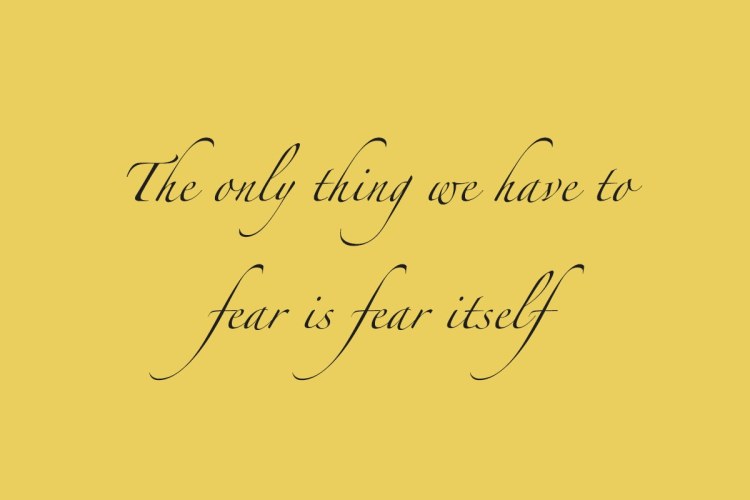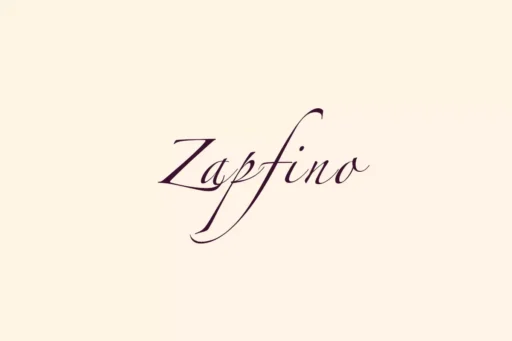
Zapfino Font
Zapfino font was developed in 1998 by Hermann Zapf, one of the greatest type designers. It fuses the classic calligraphic style with the modern requirements of type desi…
Zapfino font was developed in 1998 by Hermann Zapf, one of the greatest type designers. It fuses the classic calligraphic style with the modern requirements of type design. This typeface clearly demonstrates how calligraphy remains relevant even in today’s world of digital typography, translating the essence of handwriting in an elegant and detailed manner.
The history of Zapfino starts with Hermann Zapf, a famous typeface designer. In 1944, Zapf developed an alphabet that reflected the art of calligraphy. But it was not until 1998 that this alphabet developed into the digital font Zapfino. Zapf wanted to design a font that imitates handwritten lettering in liquid and dynamic forms. He created Zapfino from Renaissance calligraphy in Italian and French scripts with the help of modern technological advancement in typography.
It was distributed by Linotype; Zapfino was very well-received, with many people noting the fine detailing and the graceful curves. The design community took to this typeface and incorporated it into many designs as well as other forms of creative projects. Realizing the potential of enhancing the features of Zapfino, Hermann Zapf collaborated with Akira Kobayashi to release Zapfino Extra in 2003. This new typeface library offered the best in today’s typography; it offered variety and flexibility and gave the graphic designer a chance to be more creative.
The letterforms of Zapfino are characterized by their elegance and sophistication; the ligatures are detailed, and the stroke weights are not uniform, which gives the font an active and striking aesthetic. Its letters have smooth transitions to make the words appear as if written in joined-up writing, thus improving the legibility. This font contains many characters in every style, including alternate glyphs and swashes that can be suitable to create unique effects for the text and headlines.
Also, Zapfino has numerous character options. The letter “d,” for example, has several forms, and each one has a different stroke. This versatility enables the designers to create a diverse and aesthetically pleasing design where every word is a piece of art.
Due to its unique characteristics, Zapfino is suitable for certain tasks. It also finds its application effectively in invitations and greeting cards to enhance the looks of occasions. Many artists and designers prefer Zapfino due to the fact that this font can add a unique and creative touch to various projects, such as posters and logos. This font is perfect for such creative uses as it is capable of conveying emotion as well as grasp the attention of the viewer.
When it comes to typography Zapfino is a masterpiece especially when in use for display purposes. Its calligraphic flair makes it perfect for grabbing the reader’s attention, and therefore, it is perfect for headlines, titles, and other short form texts. When designing a magazine cover, a website banner, or a product label, Zapfino gives your text a distinct look that puts the message across in style.
Zapfino is in a class of its own, and many other fonts share similar calligraphic features. Some of them include
Kuenstler Script: This font has a more conservative calligraphic look than Zapfino but still has some flair to it.
Snell Roundhand: This font, Snell Roundhand, gives a very old-age feel like someone would write a letter in the 17th or 18th century.
Edwardian Script: This font resembles early 20th century calligraphy, with soft lines and elegant ornaments.
Where Zapfino Font works best
Zapfino Font brings a personal, handwritten warmth to invitations, menus and place cards.
Craft brands — coffee, cosmetics, bakery — use scripts like Zapfino Font for signature-style logos and labels.
Pair Zapfino Font with a plain sans for quotes, stories and Pinterest pins that feel handmade.
What is Zapfino Font good for?
Zapfino Font is a Script And Handwritten typeface tagged Calligraphy, Classic, Elegant, Handwritten. It works well for headlines, logos, posters, social media graphics and branding projects that need a distinctive script and handwritten look.